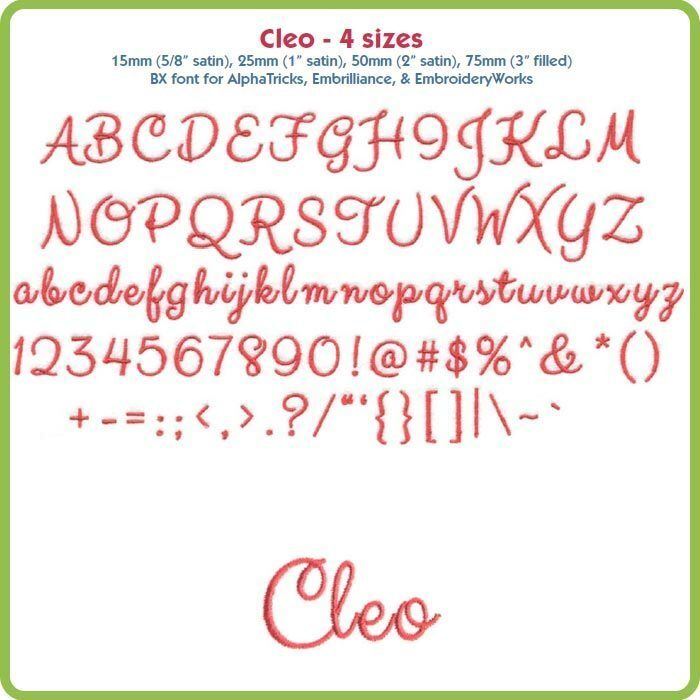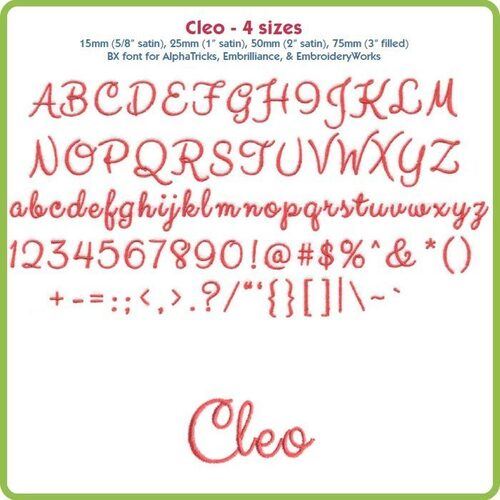
Collection Notes: Cleo is a casual upright script font that includes A-Z, a-z, 0-9, and the following punctuation: ~!@#$%&()-[]:;"',.?/ in 4 sizes: 15mm (5/8" satin), 25mm (1" satin), 50mm (2" satin), 75mm (3" filled).